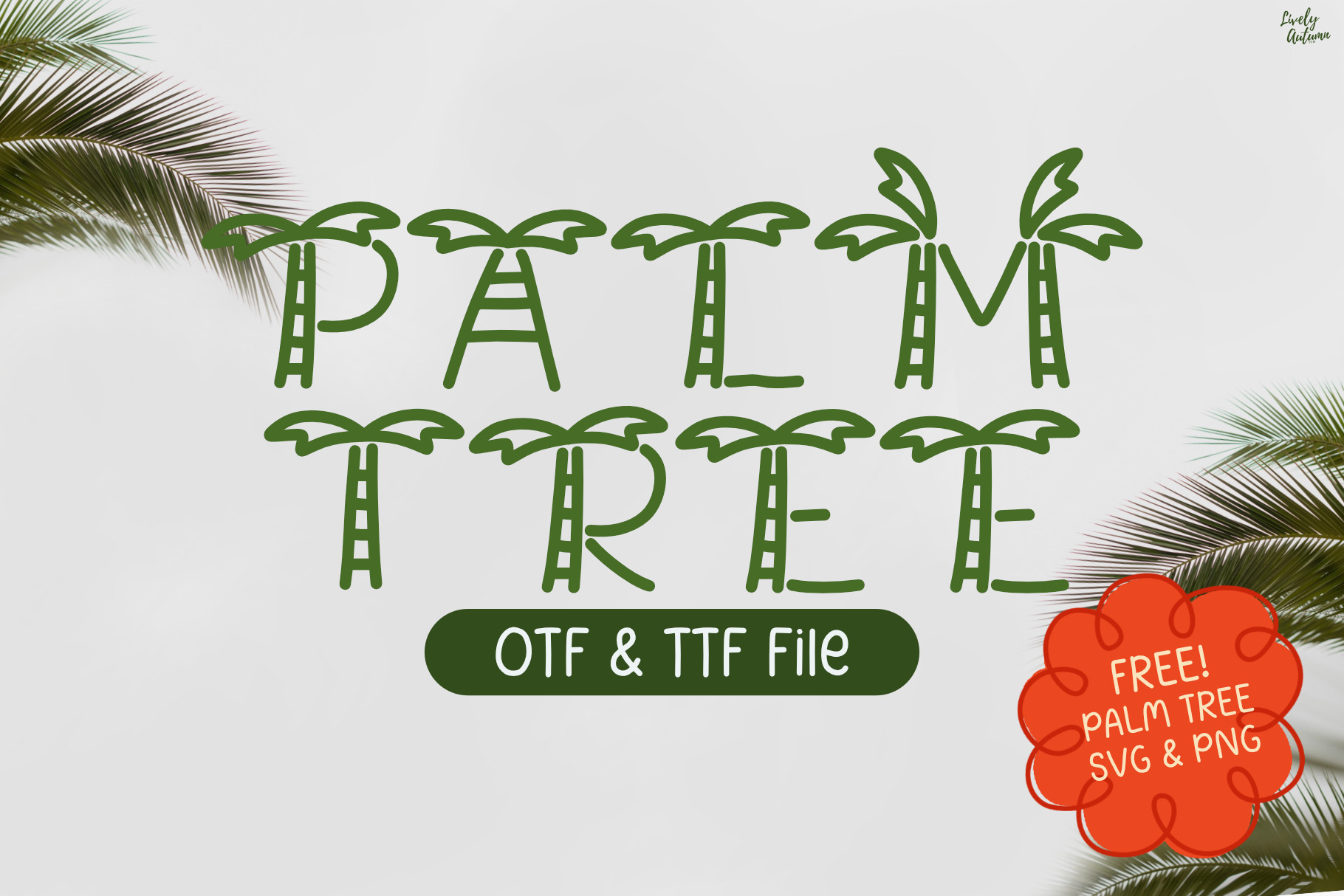
Palm Tree | Display Handwriting Font
Palm Tree is a display handwritten font with palm tree decorations on each letter. Perfect for your personal projects and various projects. From invitations to posters, social media graphics, journals, stickers and much more.
Font includes: uppercase, numbers and punctuation